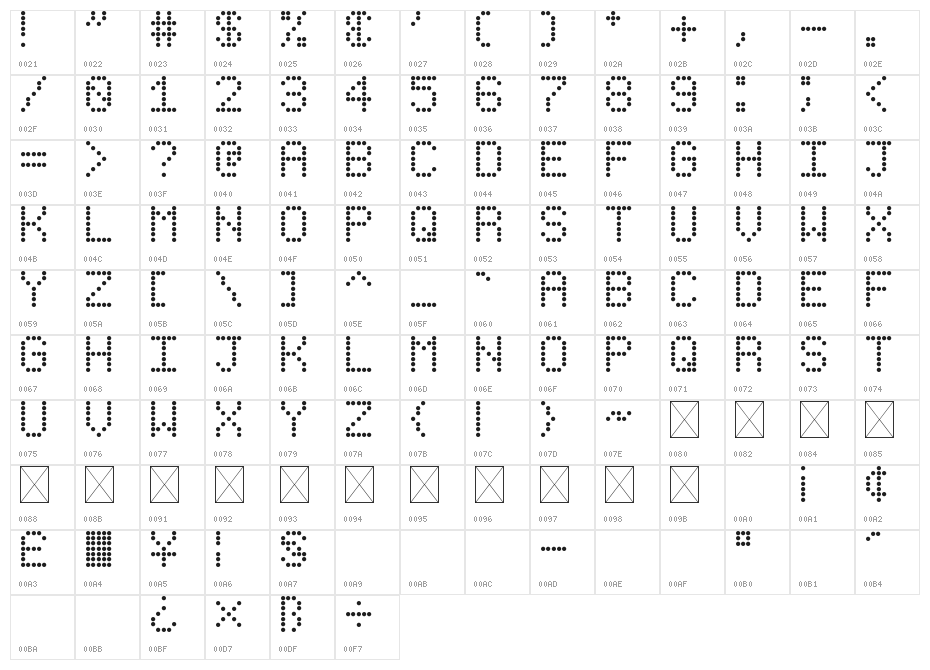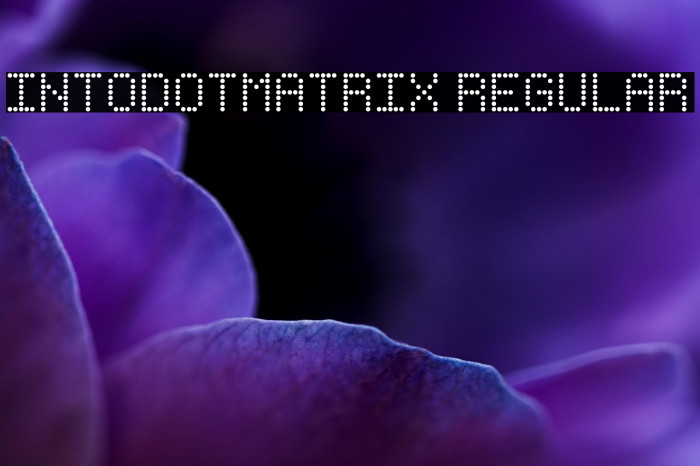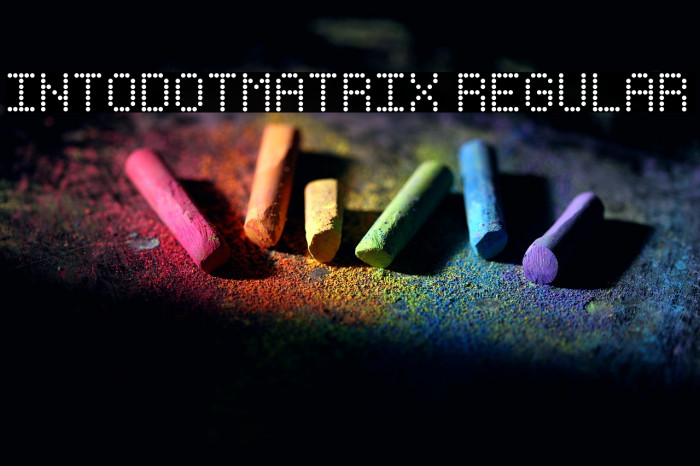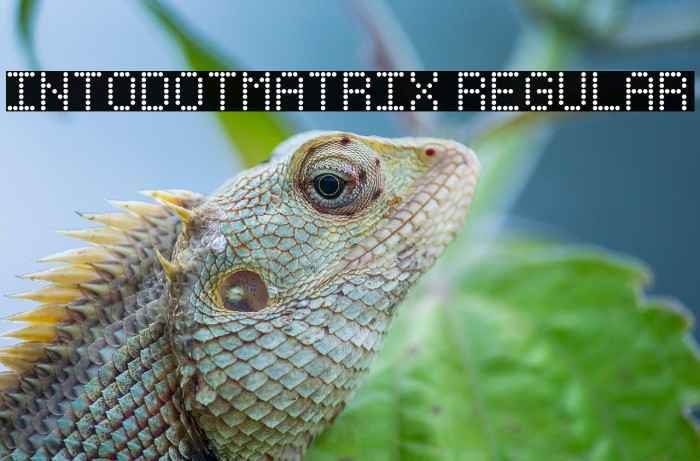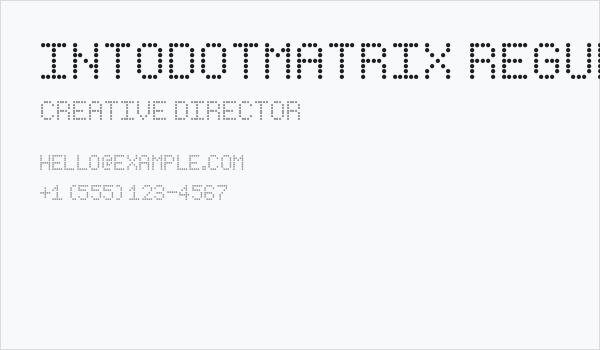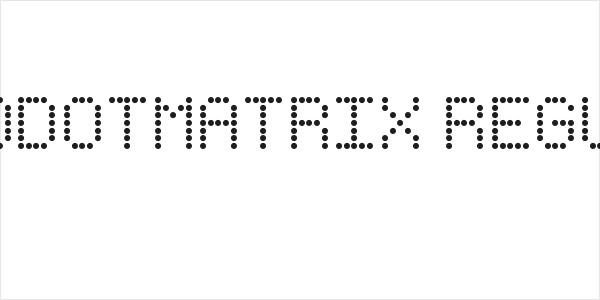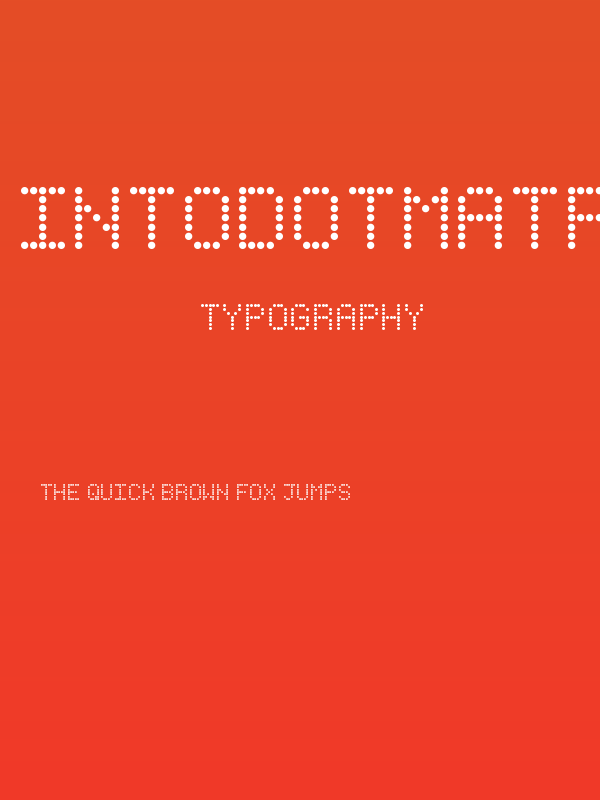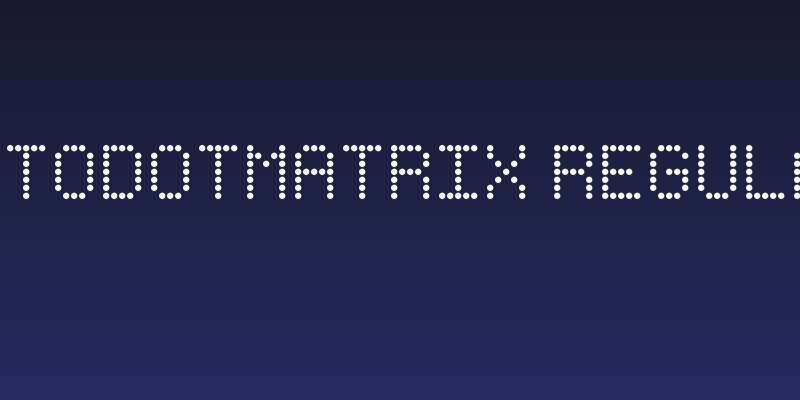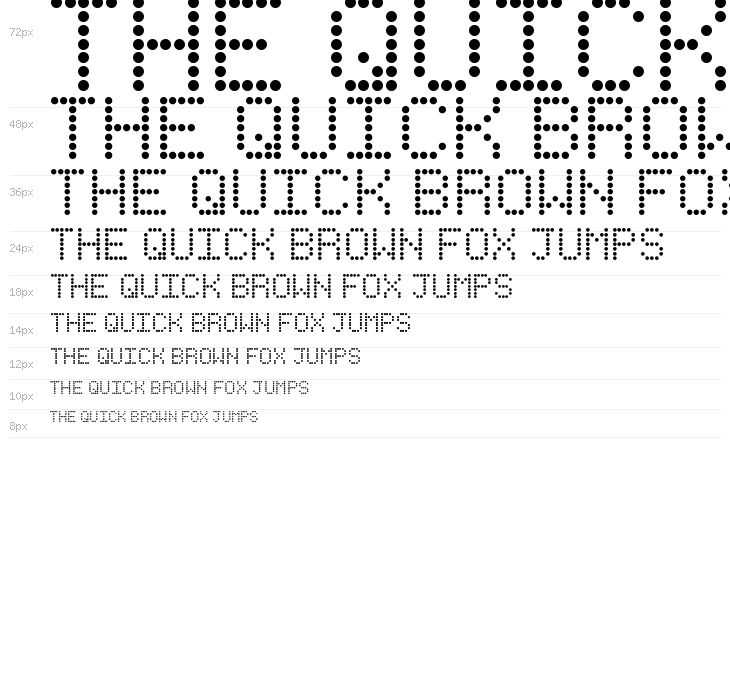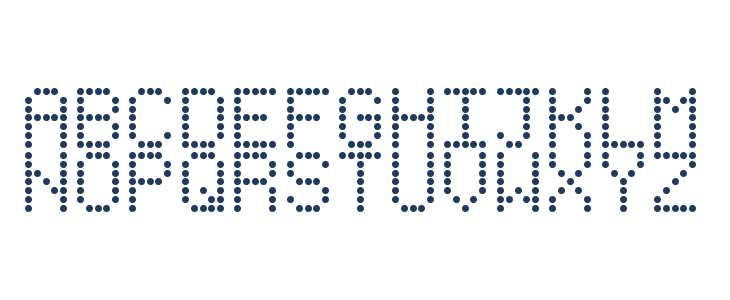
IntoDotMatrix Regular Font
IntoDotMatrix Regular Description
This font features a unique dot matrix style, reminiscent of old digital displays and printers. Each character is composed of a grid of dots, giving it a retro and technological feel. The uniformity of the dots creates a consistent texture across all characters, while the spacing between the dots ensures readability. This font is particularly suitable for projects that aim to evoke a sense of nostalgia or a digital aesthetic. The uppercase and lowercase letters, as well as numbers and special characters, maintain this dot pattern, making it versatile for various applications.
| Overall Style | Retro, Digital |
| Proposed Projects | Ideal for retro-themed designs, digital displays, tech-related branding, and creative posters. |